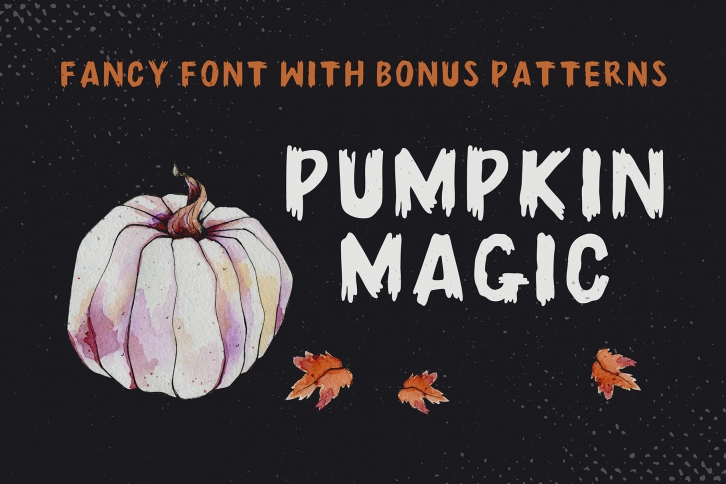
Pumpkin Magic is a cool and brushed display font. It is suitable for any projects such as: logos, branding projects, label, photography, watermark, special events, and all your other lovely projects that need a natural taste.